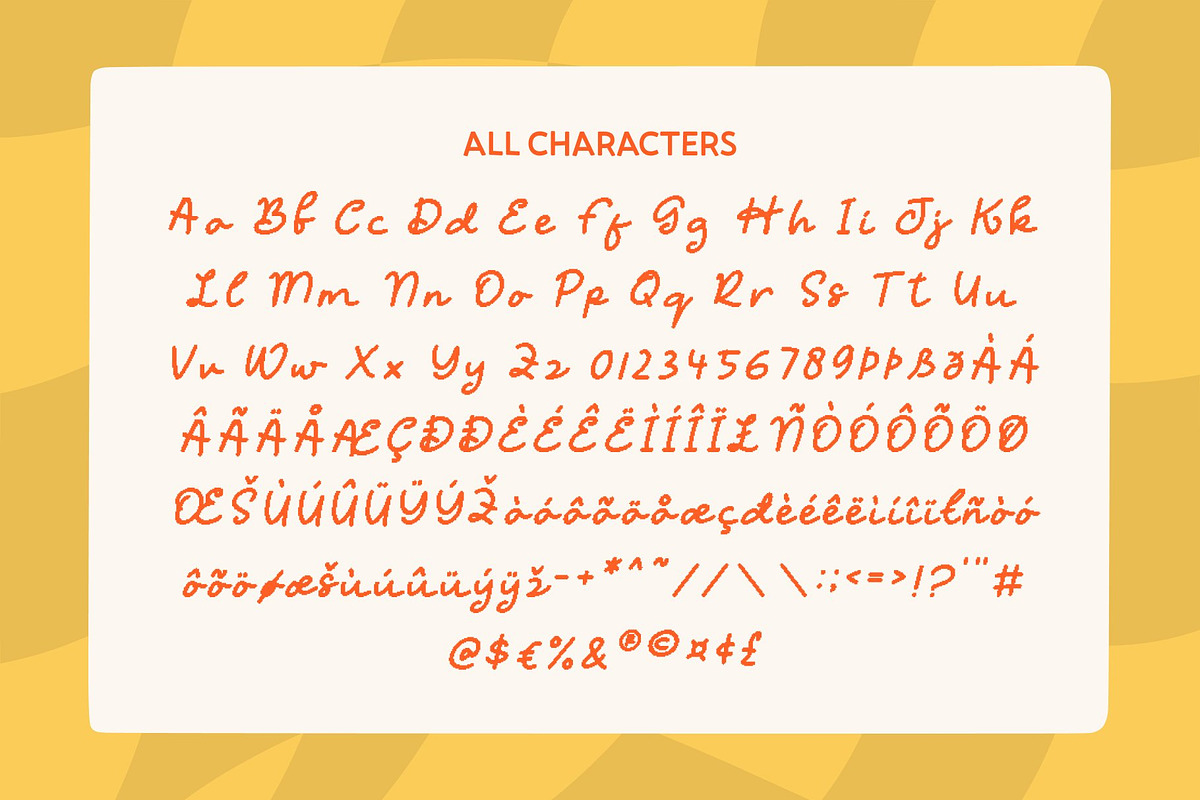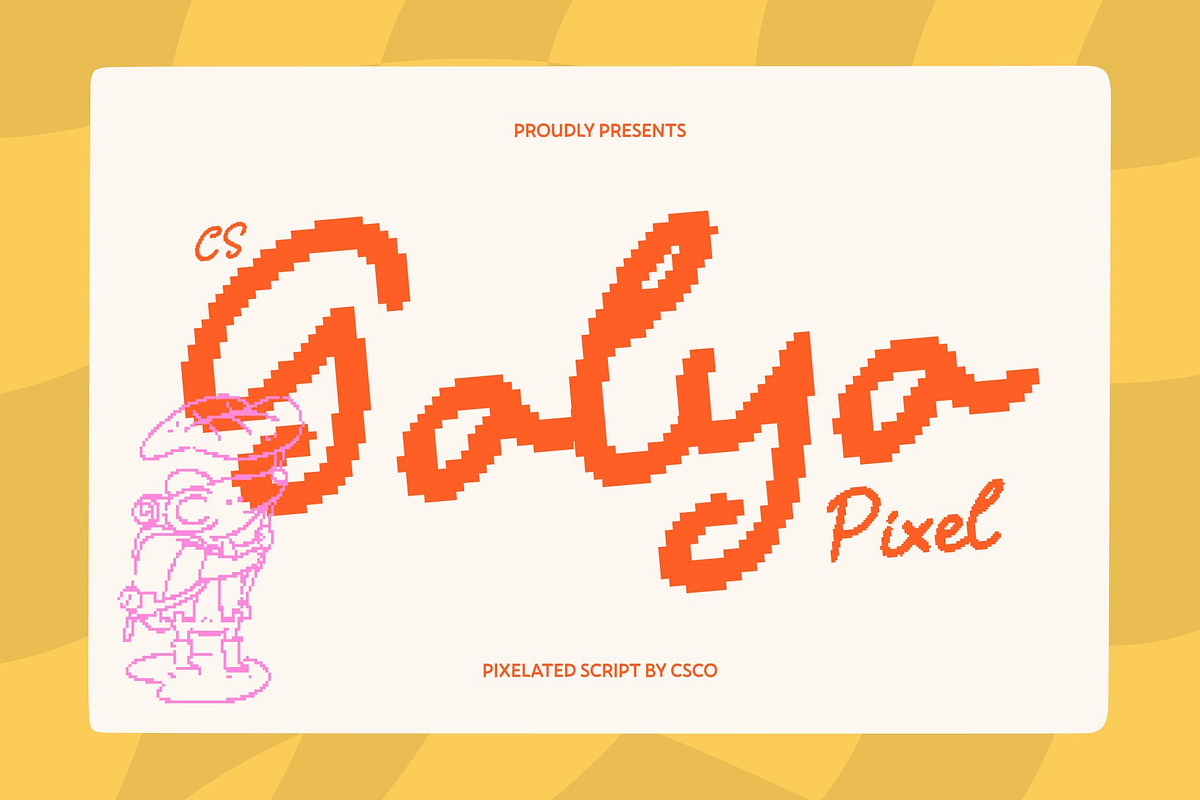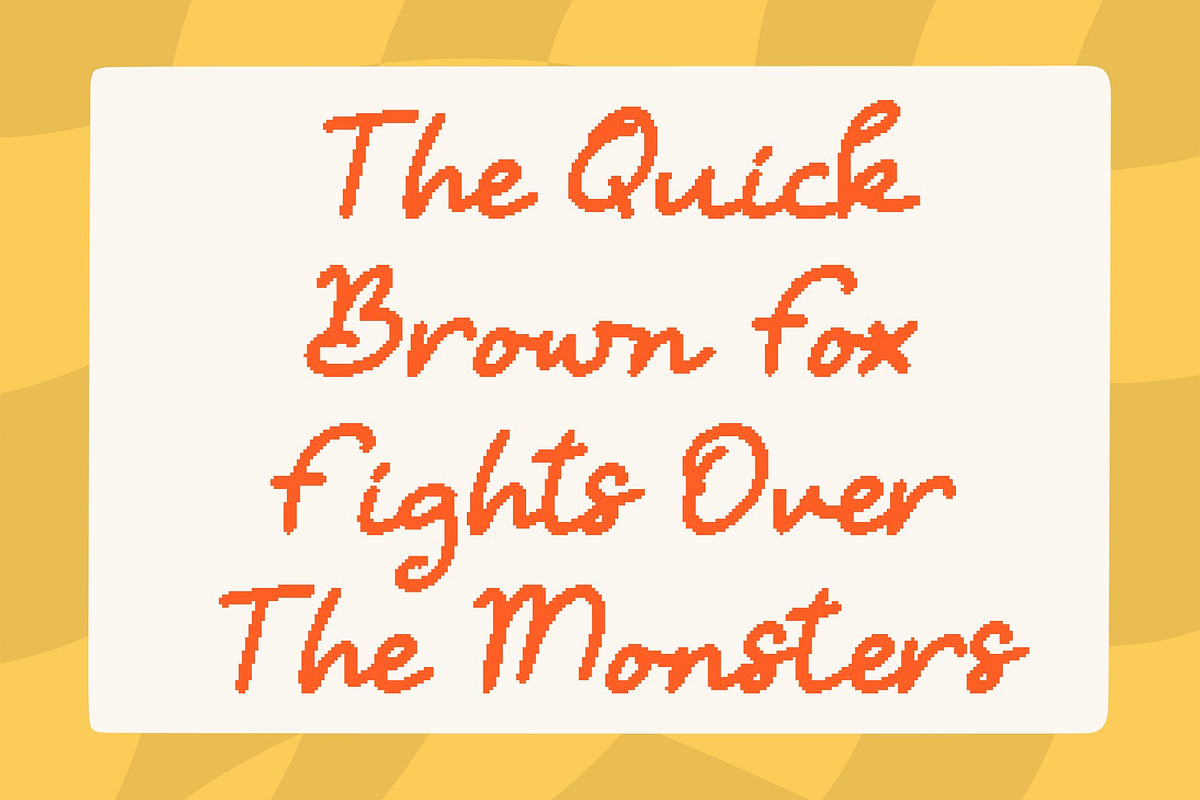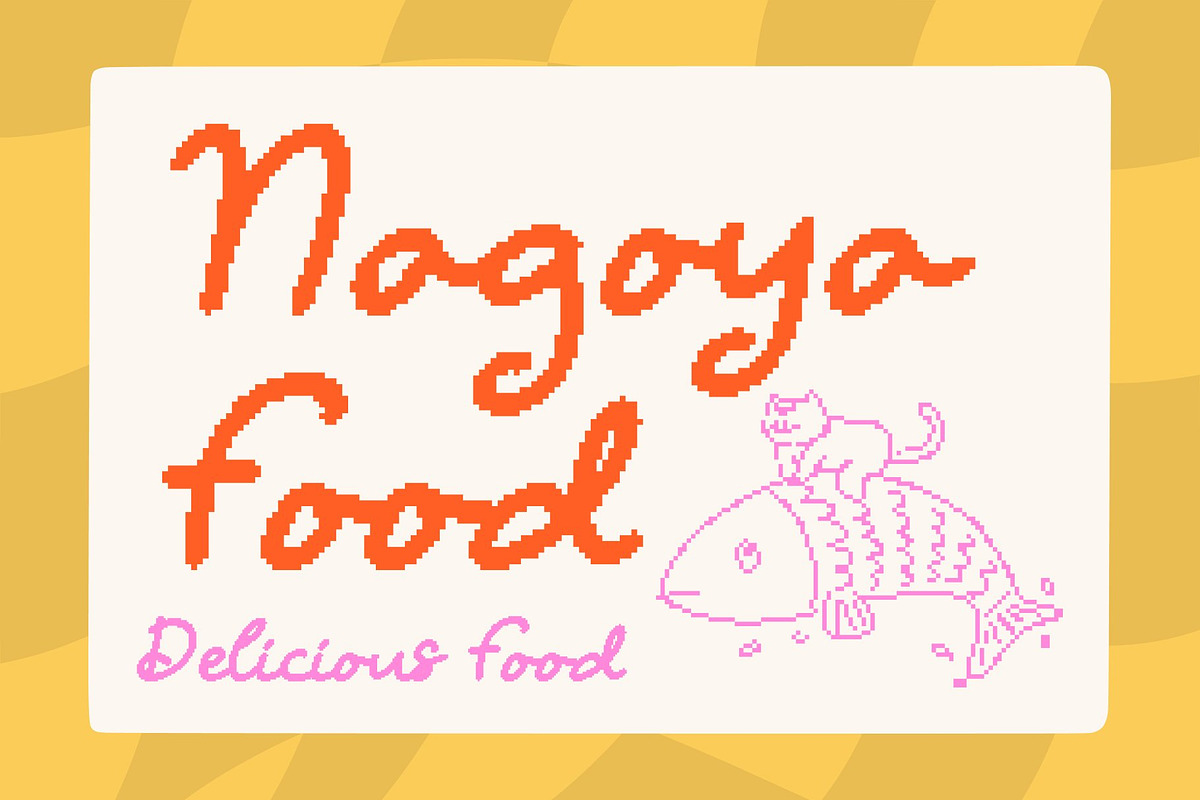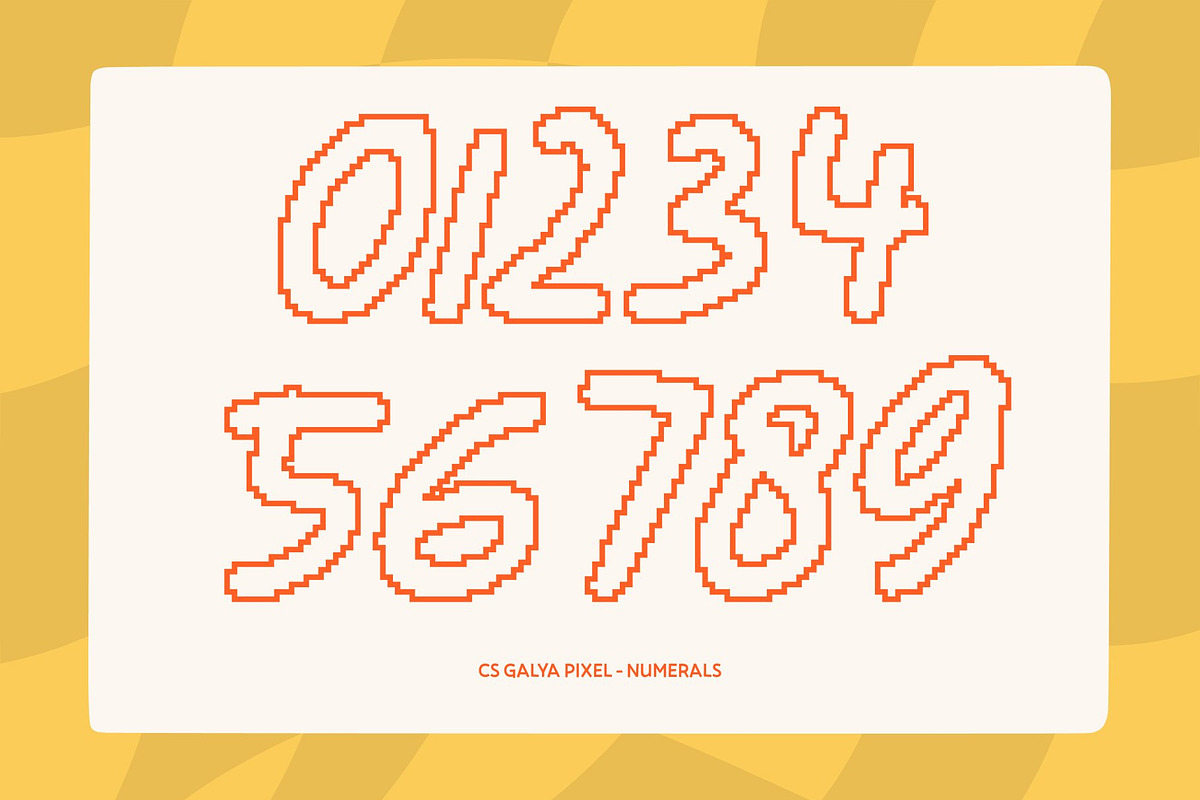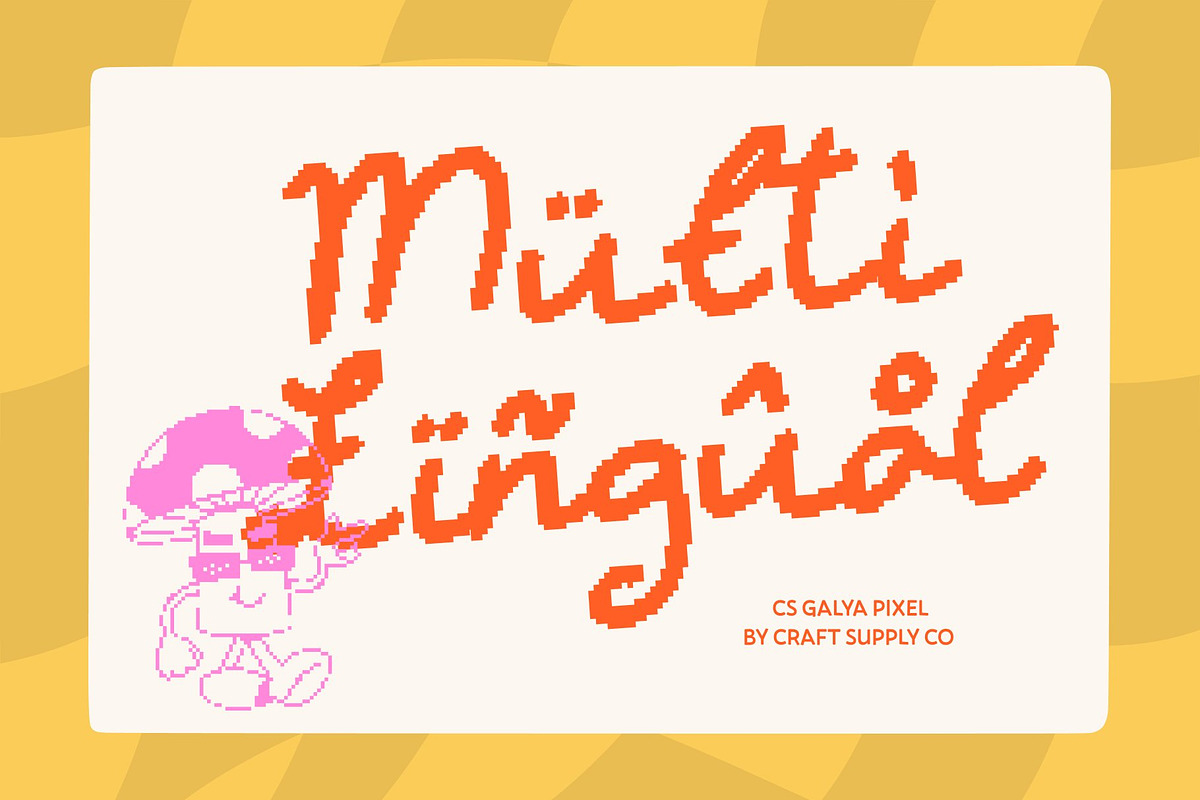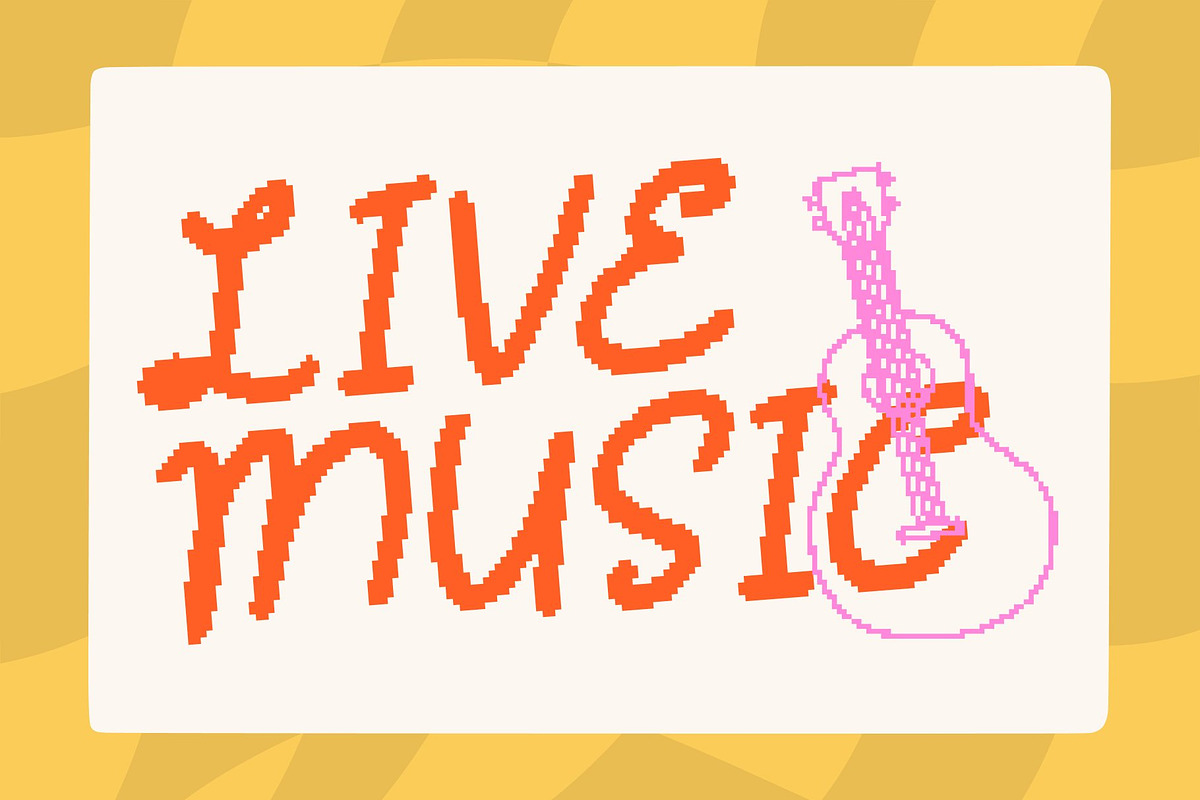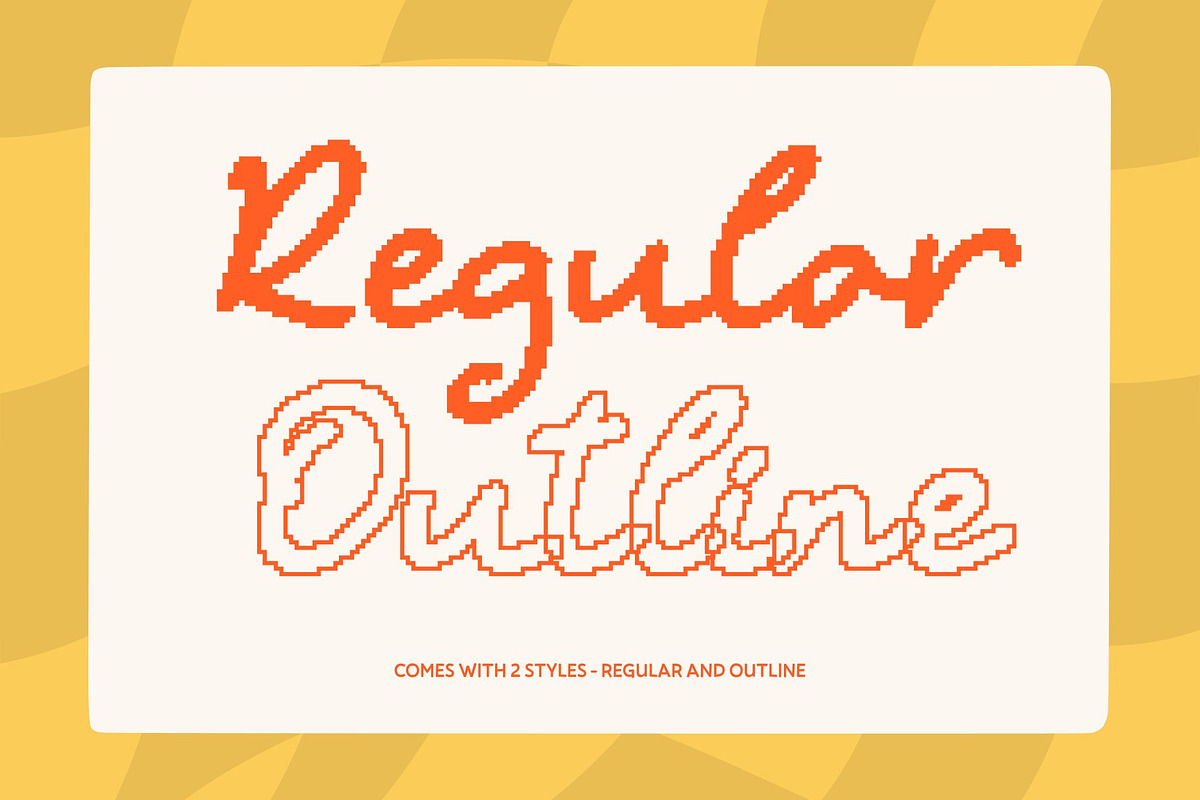
CS Galya Pixel
CS Galya Pixel – Sweet Script Font with Playful Charm
Sweet Script Style with Happy, Girly Personality This is a sweet script font that radiates joy, softness, and playful charm. Inspired by cheerful handwritten lettering, its flowing strokes and friendly rhythm create a warm, girly personality that feels lighthearted and expressive. This font is perfect for designs that want to communicate happiness, positivity, and cute visual appeal.
Playful Curves with Unique Pixel Style The smooth, rounded curves of this script font are enhanced with a pixel-style construction, giving it a distinctive digital twist. This combination of soft script movement and pixel precision creates a unique contrast playful yet structured, cute yet tech-inspired. The pixel detail adds character while preserving the font’s sweet handwritten feel.
Fresh and Fun Expression for Sunny Designs This font brings a fresh, upbeat energy that works beautifully in bright, fun, and youthful designs. Its lively flow and charming shapes make text feel animated and expressive, ideal for projects that celebrate creativity, optimism, and joy. Every word feels friendly, colorful, and full of life.
Perfect for Digital, Retro, and Playful Projects With its pixel style, this font becomes eye-catching and perfectly suited for digital designs or old-technology-inspired visuals. It shines in social media graphics, cute branding, stickers, games, retro interfaces, and playful layouts. This font blends sweet script charm with pixel nostalgia, creating a font that feels both adorable and digitally iconic.